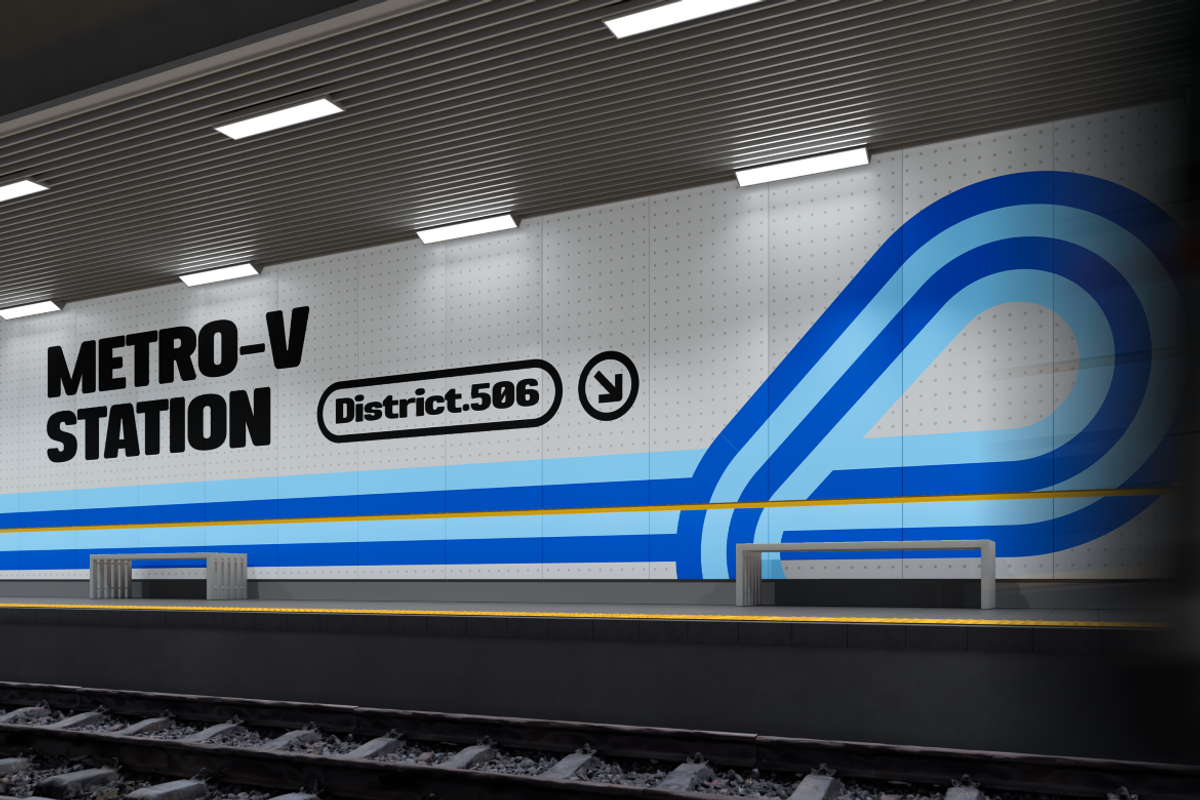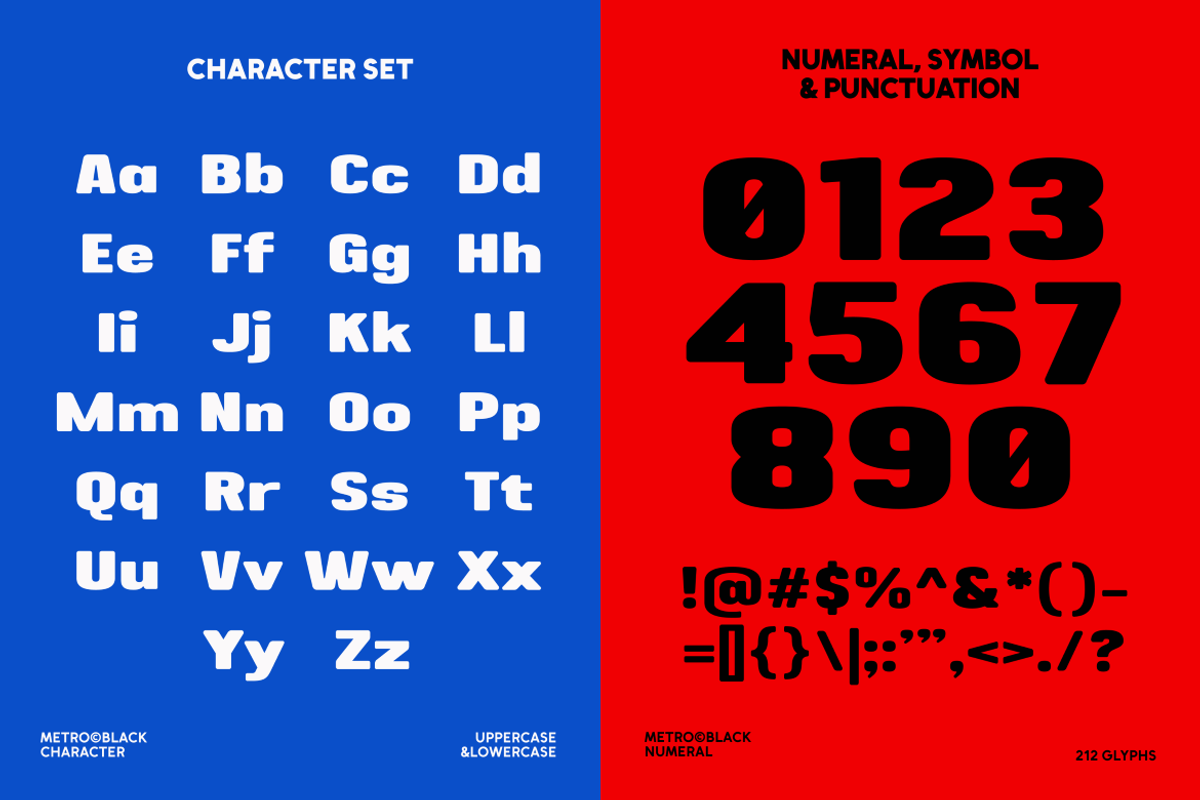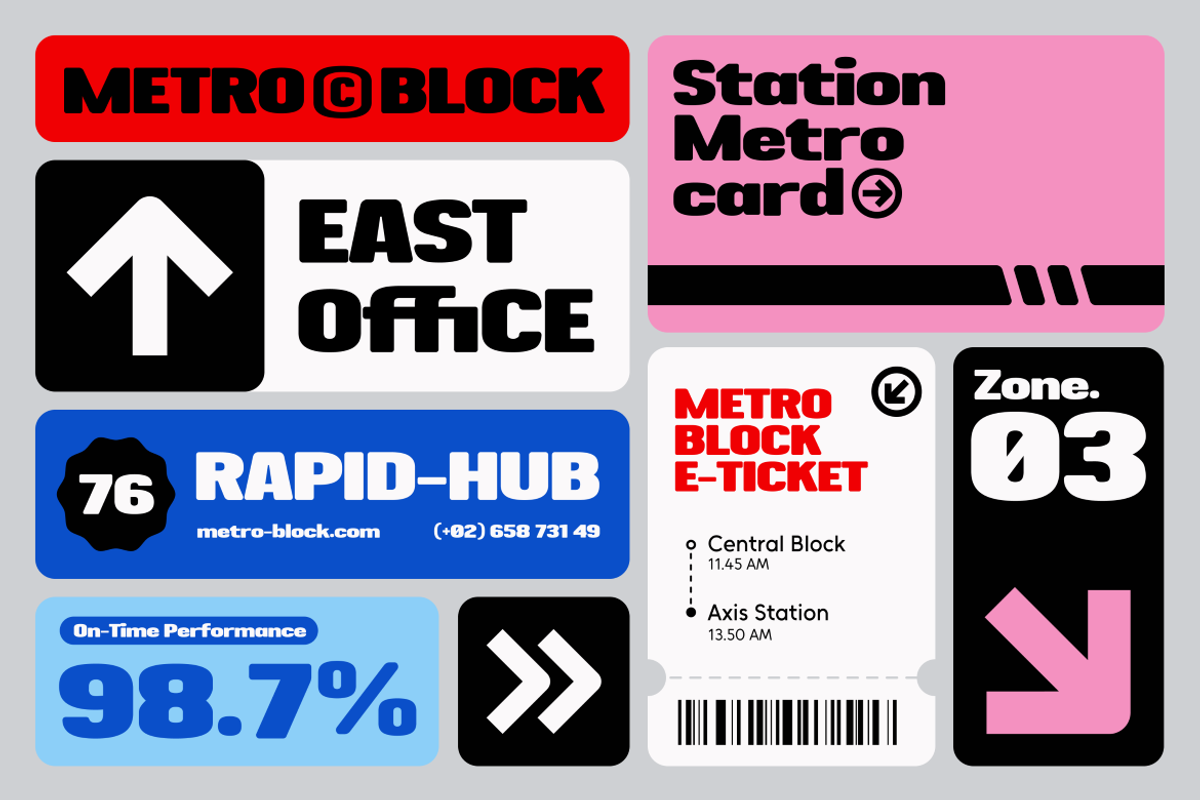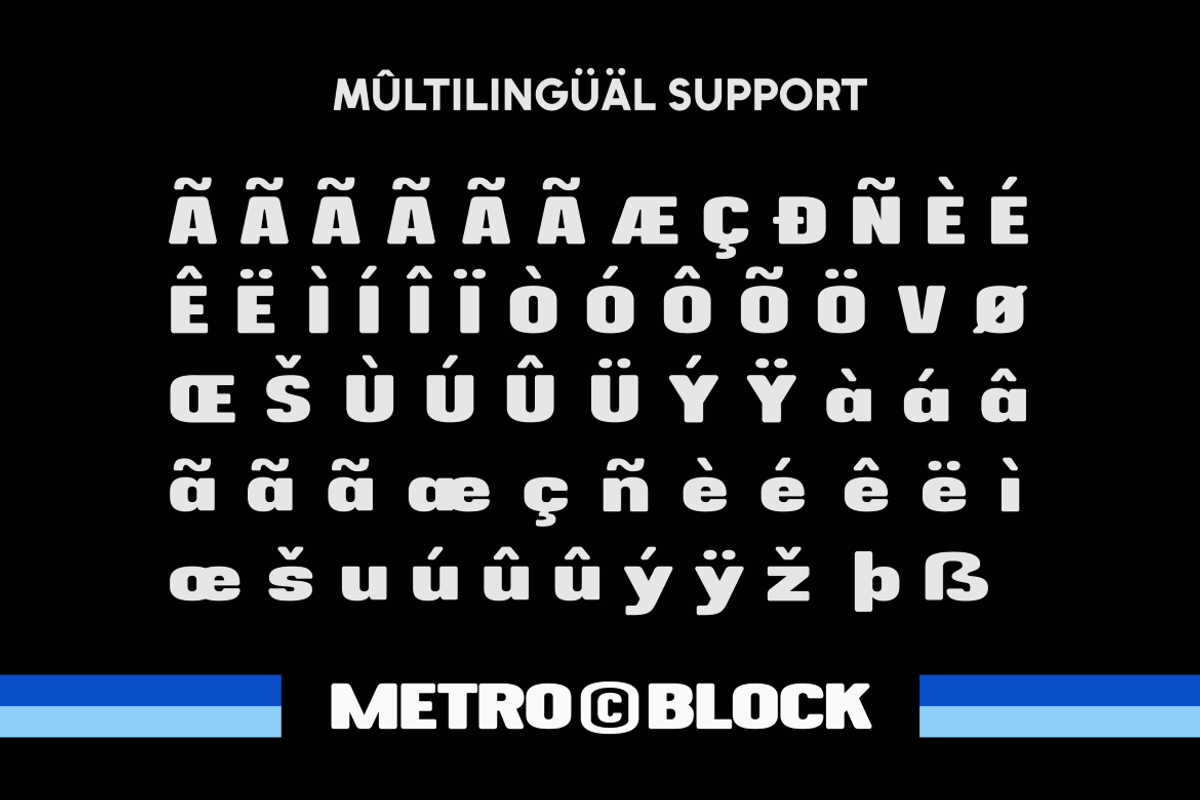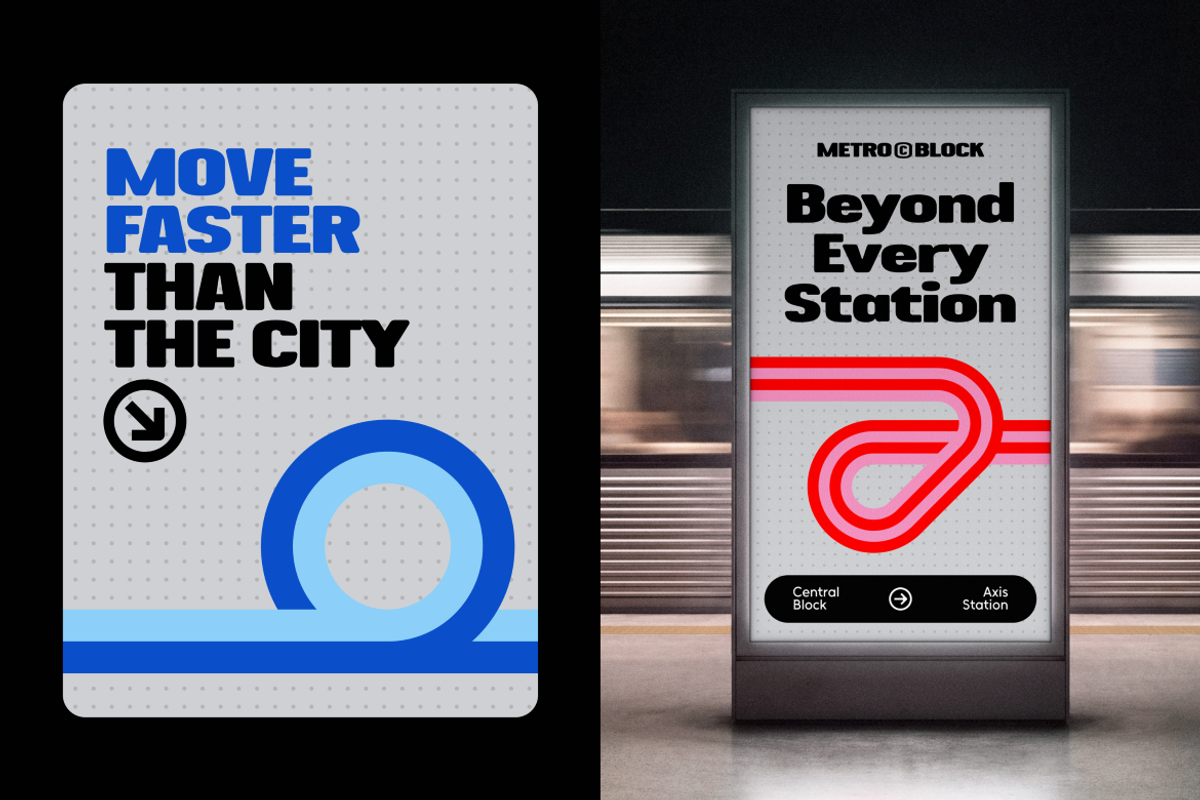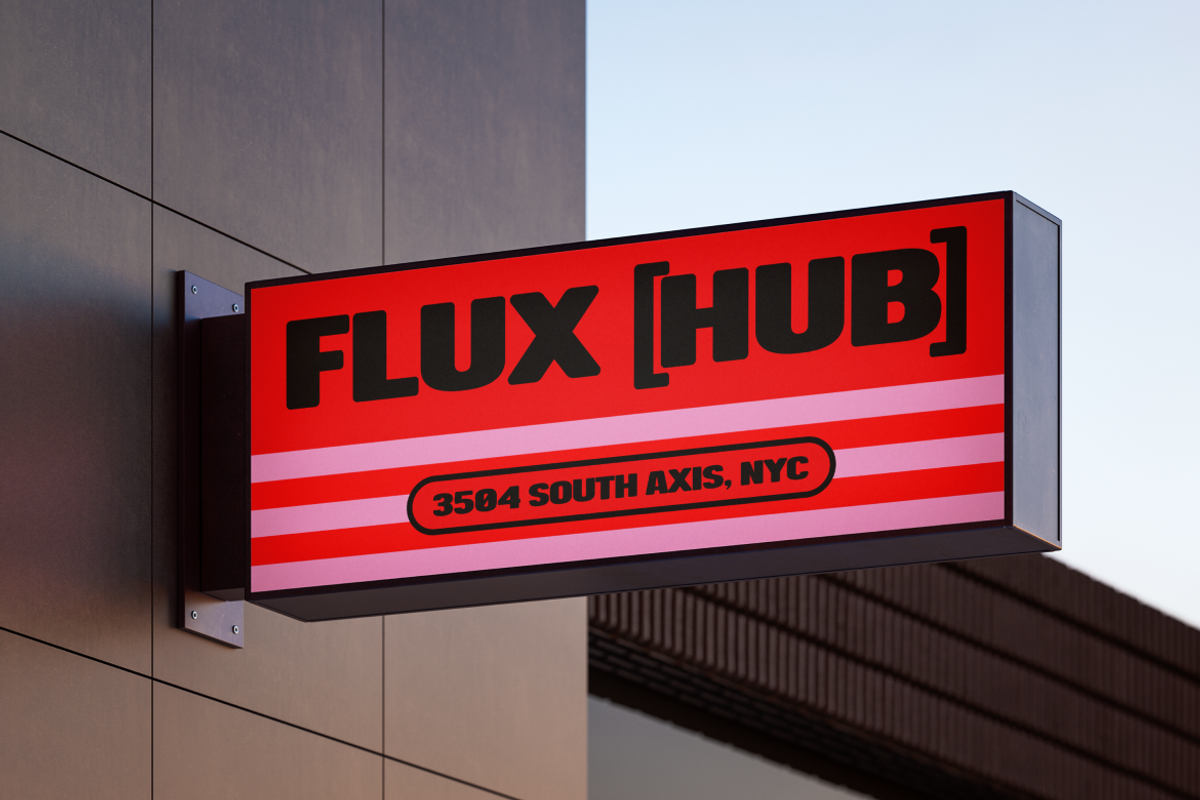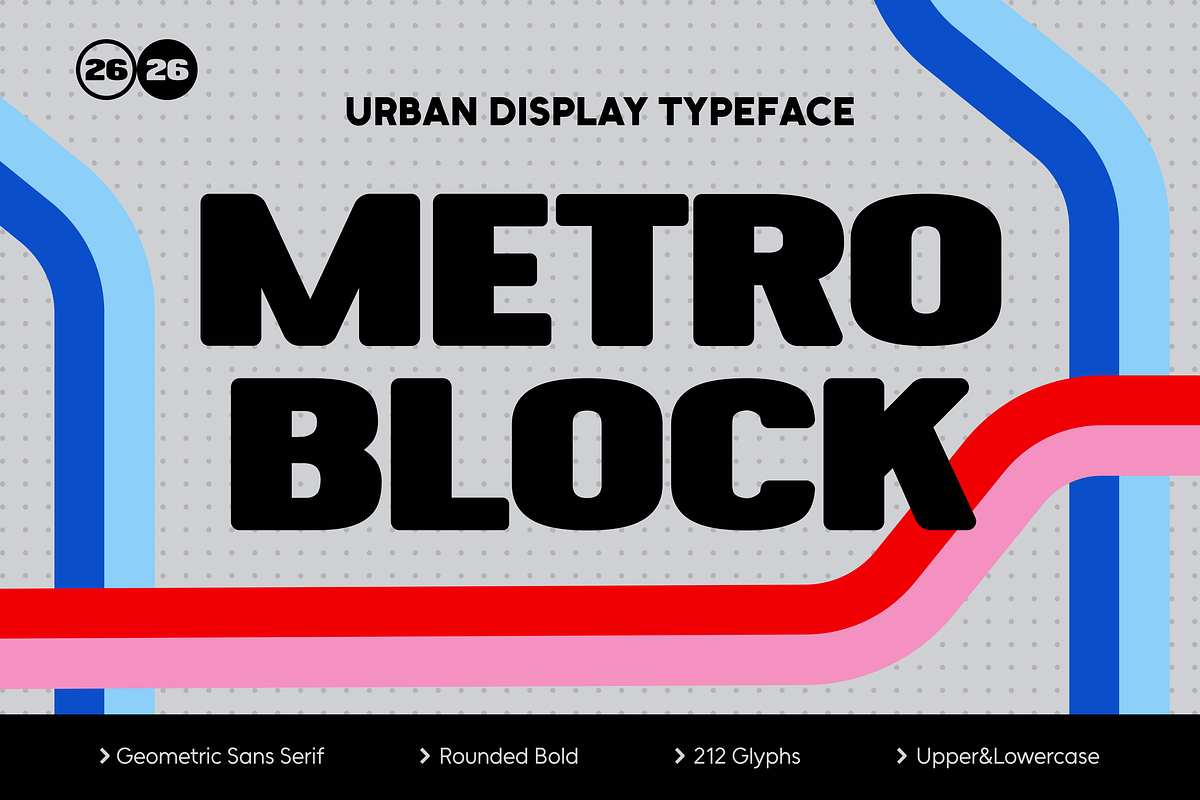
Metro Block - Sans Serif Display Fon
Metro Block is a bold urban display font with a geometric sans-serif structure and strong visual impact. Designed for modern branding, posters, headlines, and urban-style designs, it offers clean and powerful readability. With 212 glyphs and multilingual support, Metro Block brings a confident, contemporary touch to any creative project.